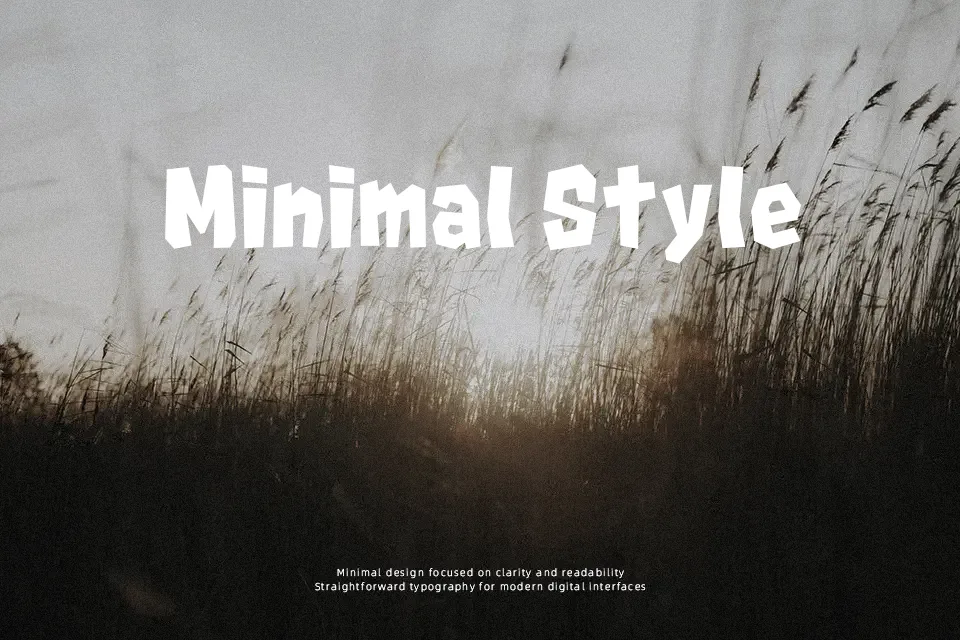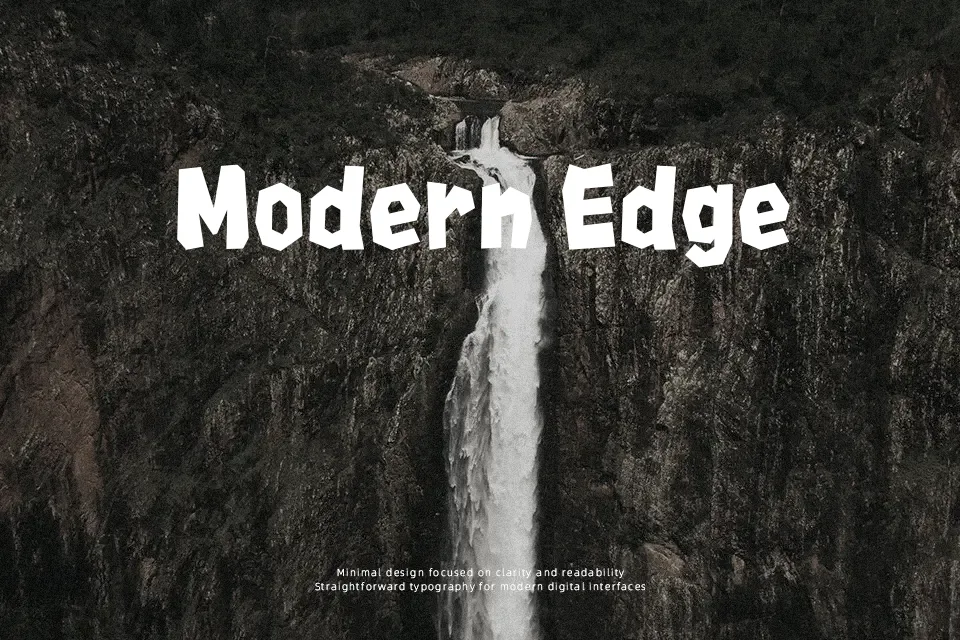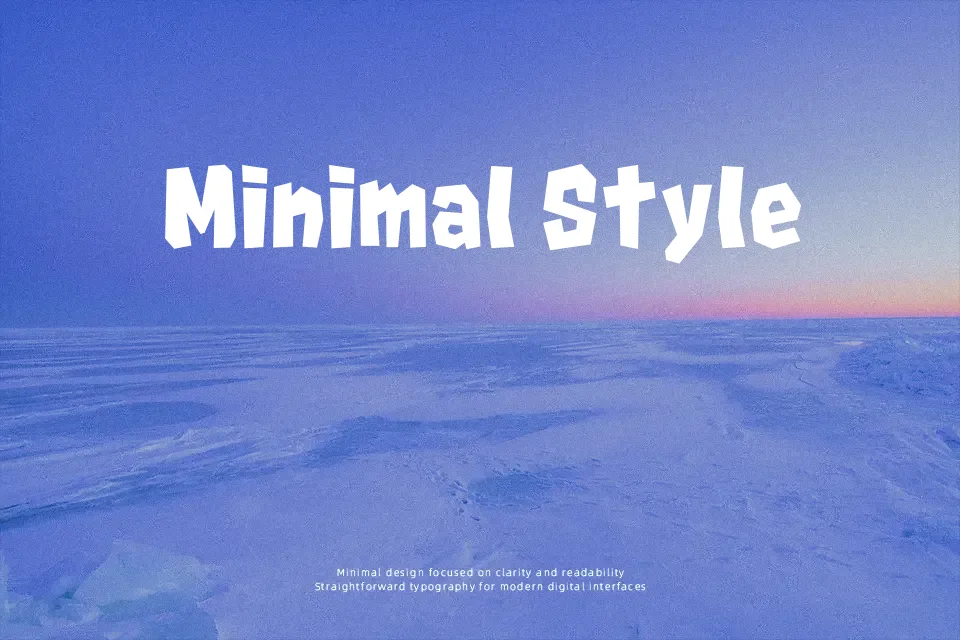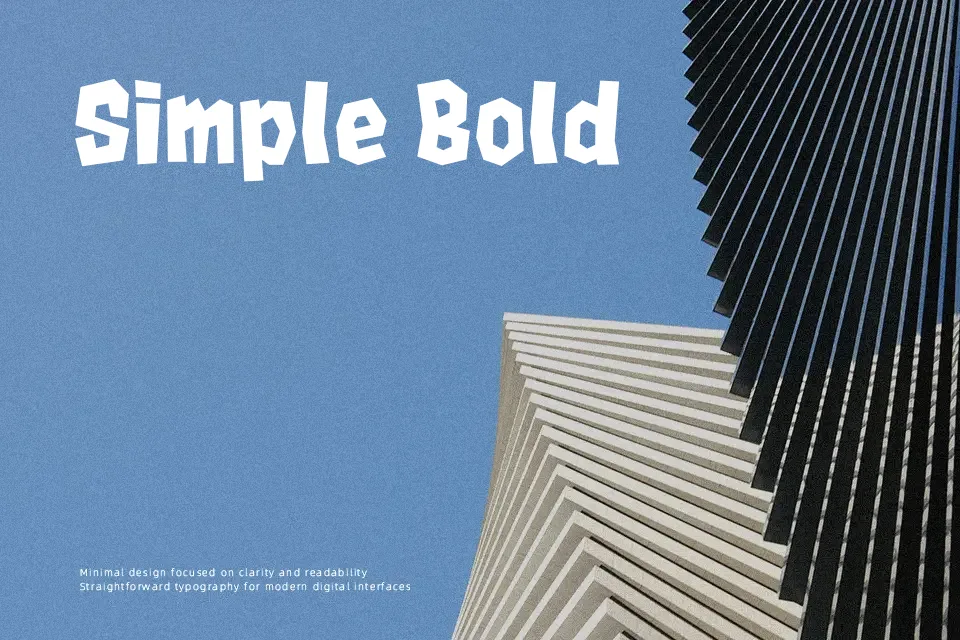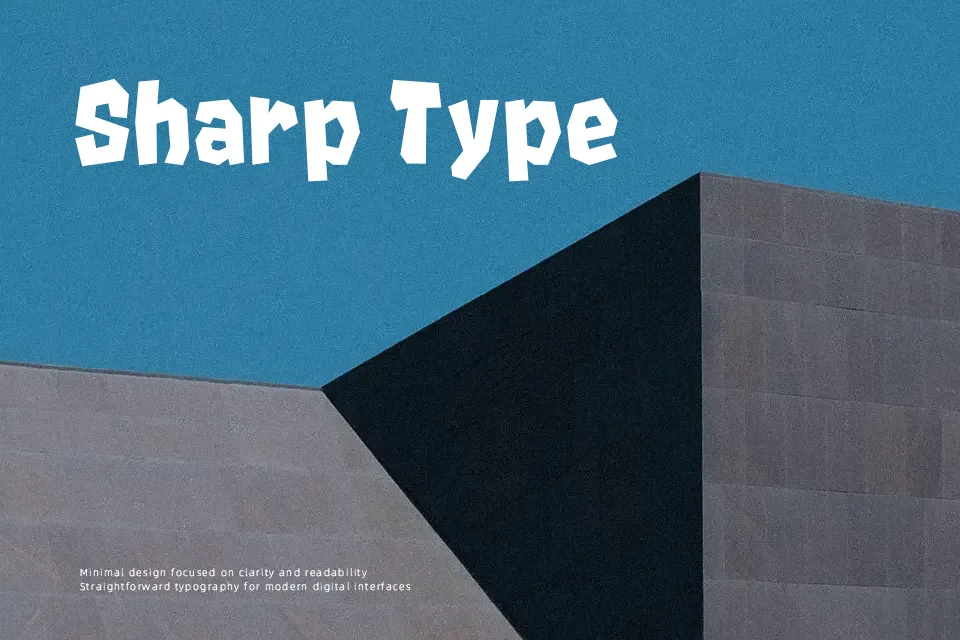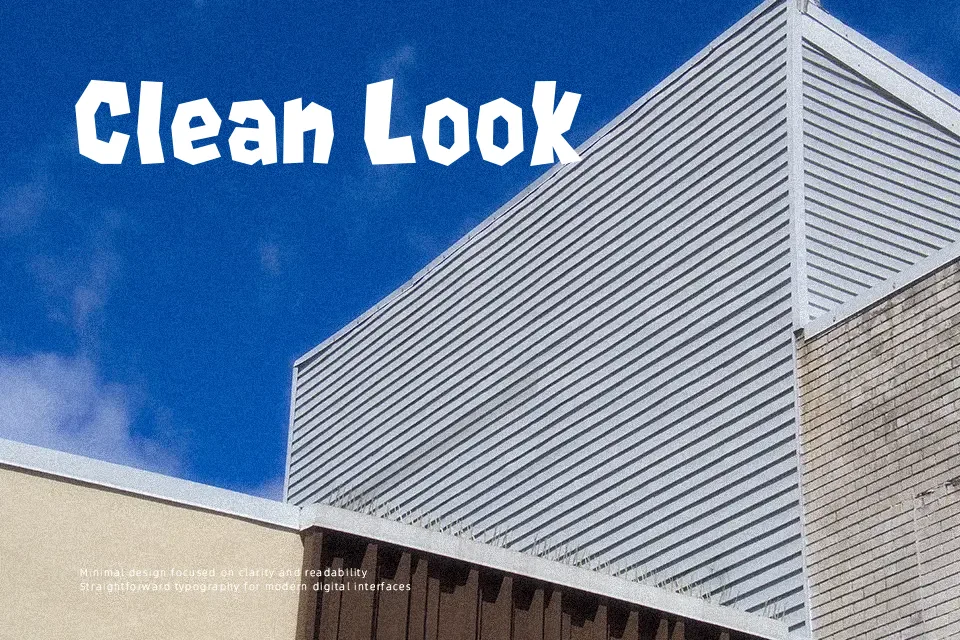
Rocks G Font
Designed by Goma Shin
Rocks G Font features a bold, structural design with heavy, thick strokes that playfully resemble carved stone. The irregular, blocky letterforms give this cartoonish display typeface a very dense appearance with tight visual rhythm. Because the characters carry substantial weight and highly decorative outlines, the typography maintains strong visibility when applied to large display settings. The chunky proportions provide a friendly yet impactful presence across both uppercase and lowercase glyphs. However, the dense forms reduce comfort during extended reading. This makes the typeface less effective for small captions or long editorial paragraphs. Ultimately, the heavy visual weight makes it an excellent choice for prominent branding, creative posters, and dynamic gaming titles where immediate attention is required.
Best For: video game titles, music festival posters, children’s apparel graphics, comic book sound effects
Not Ideal For: long paragraph text, dense editorial layouts, small interface labels